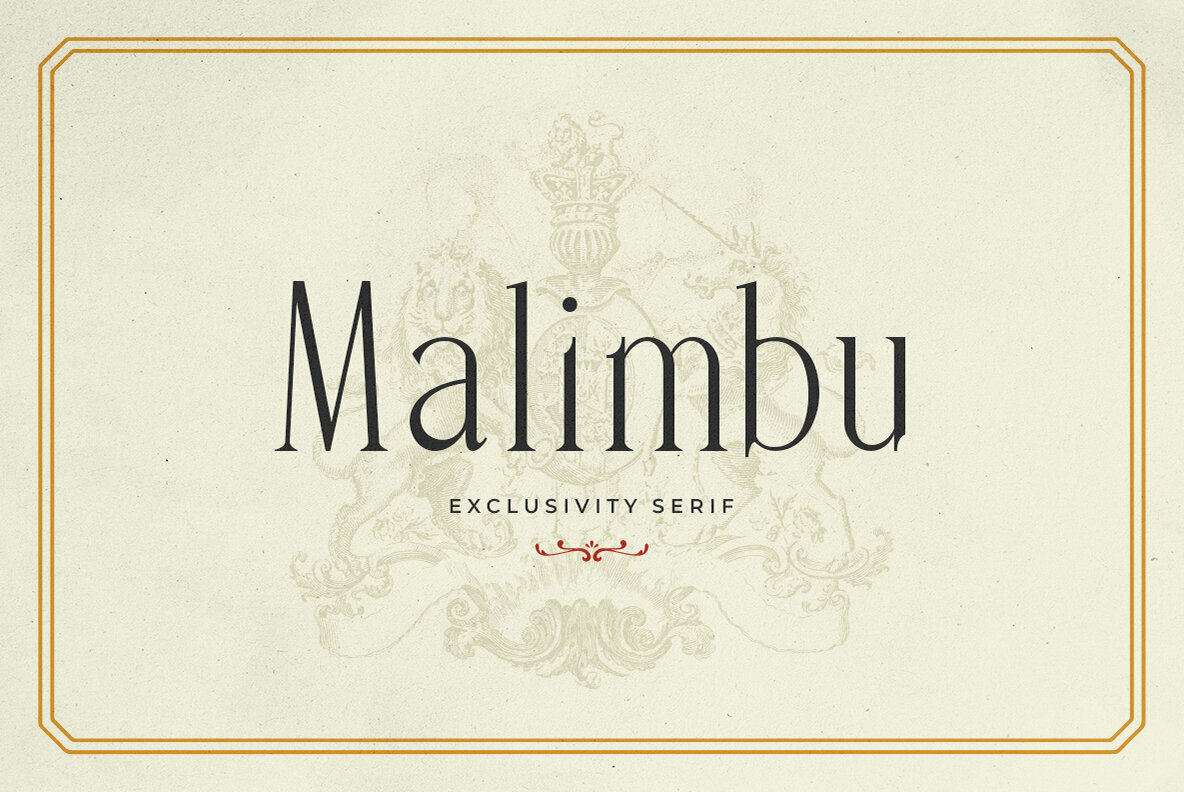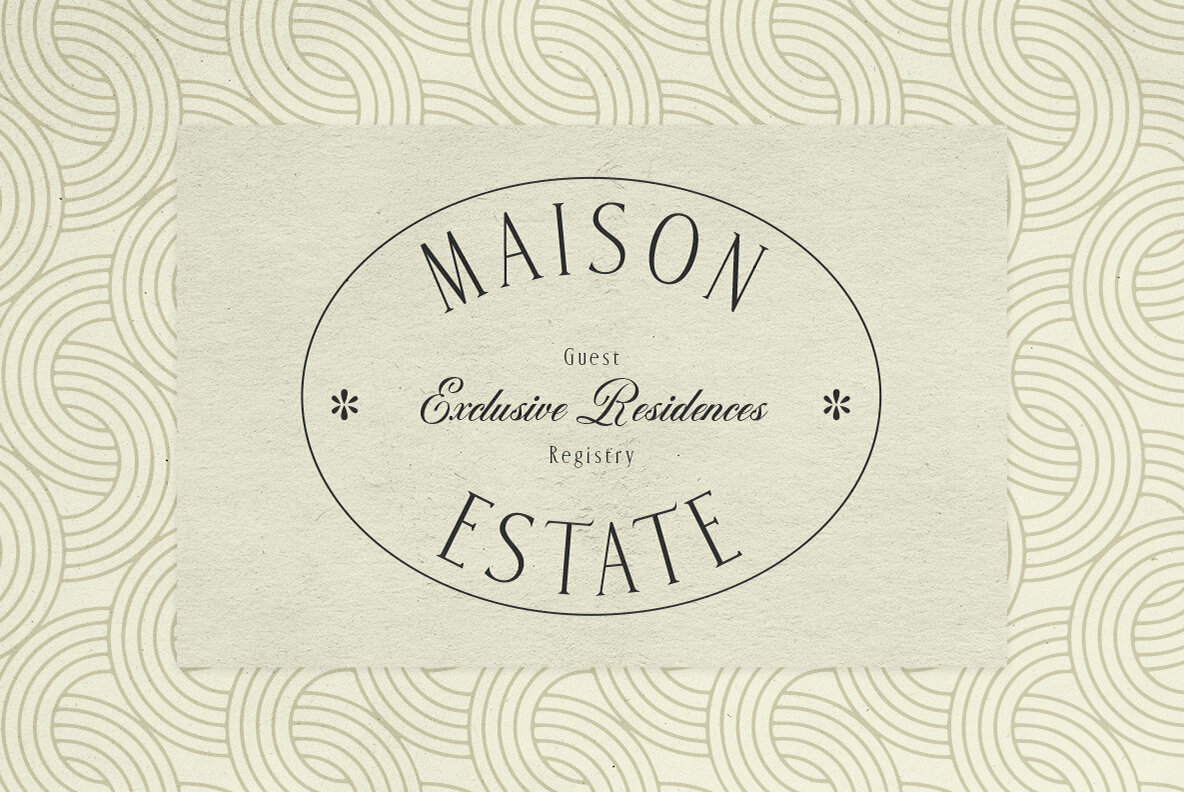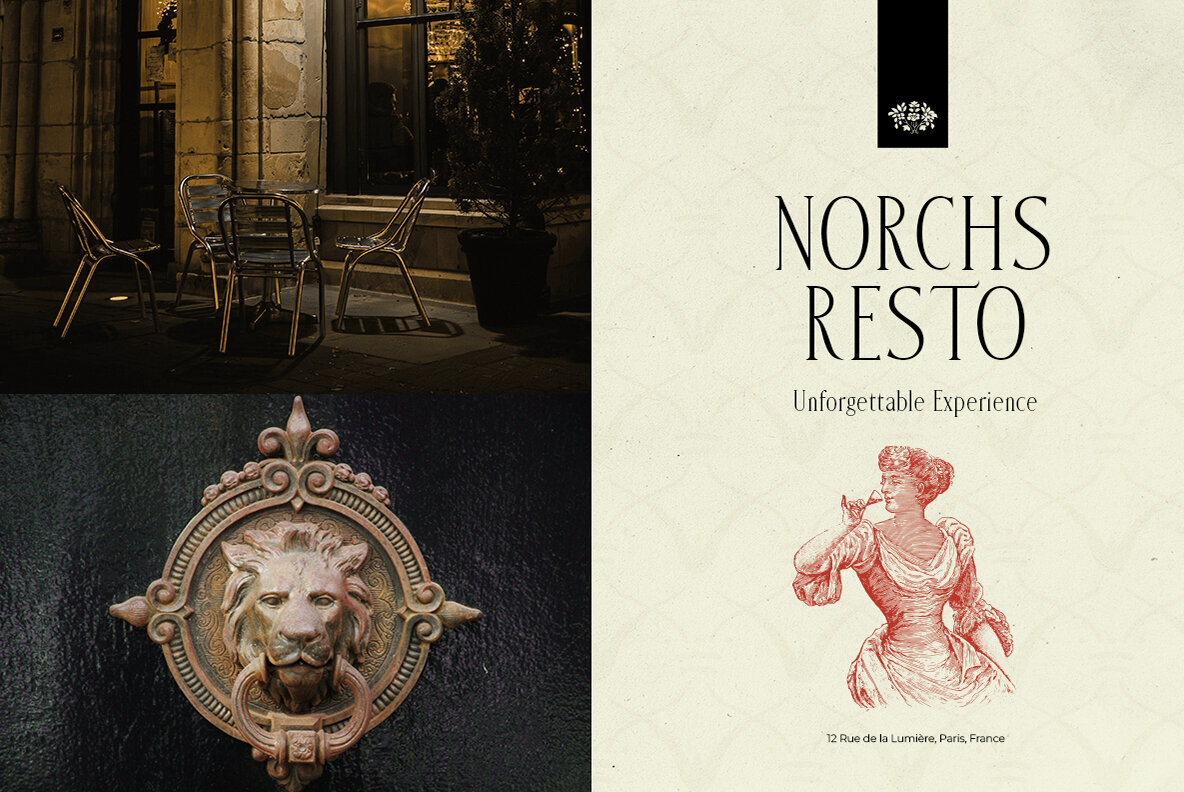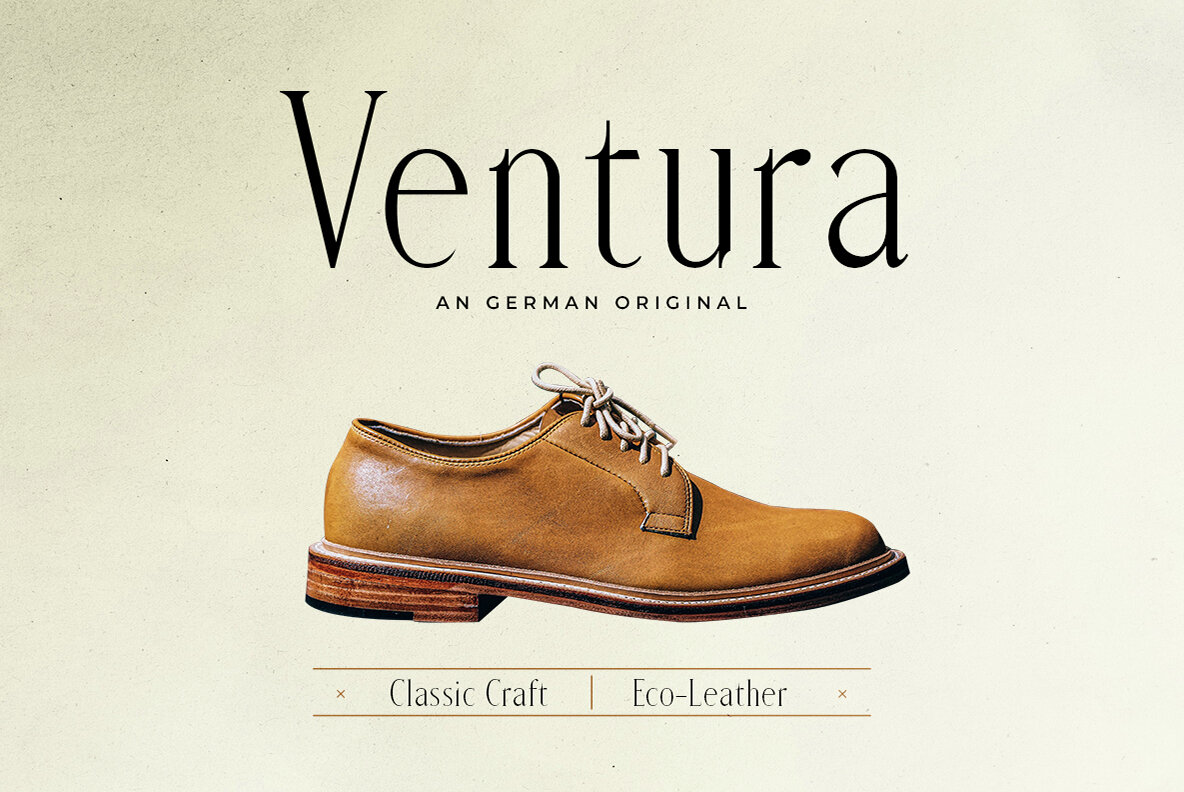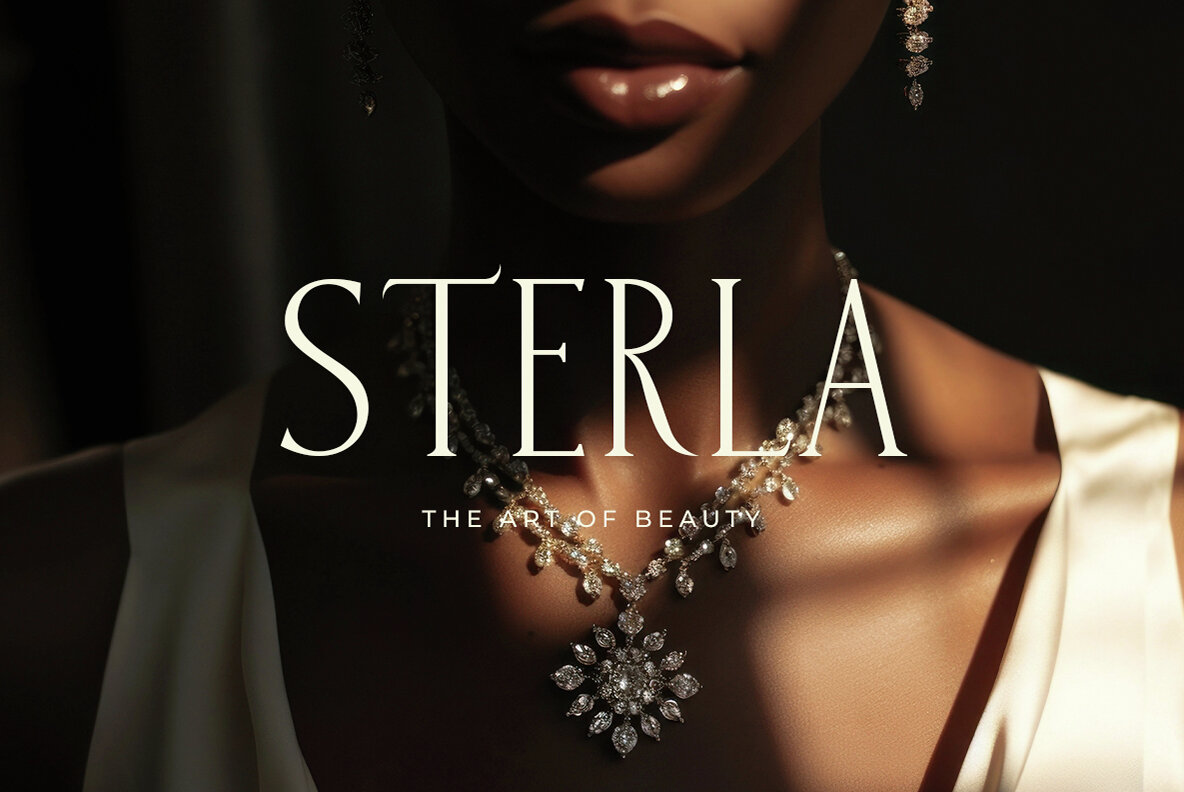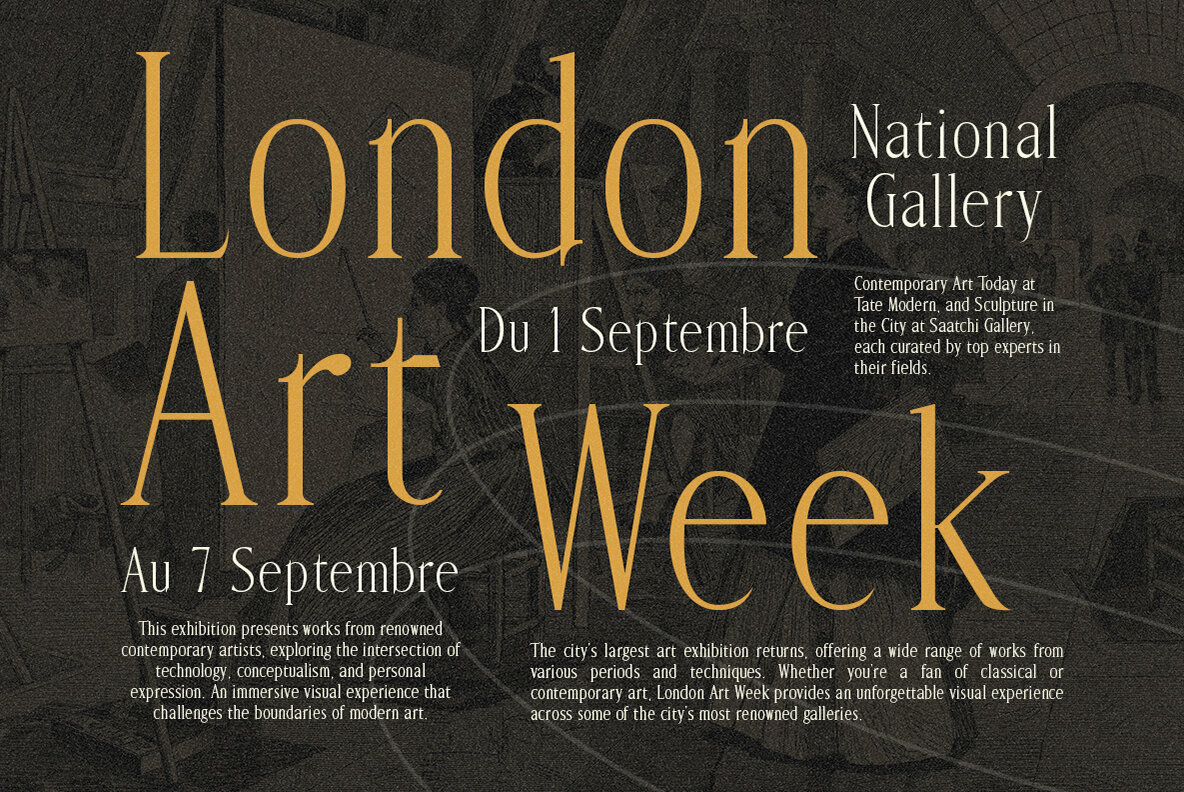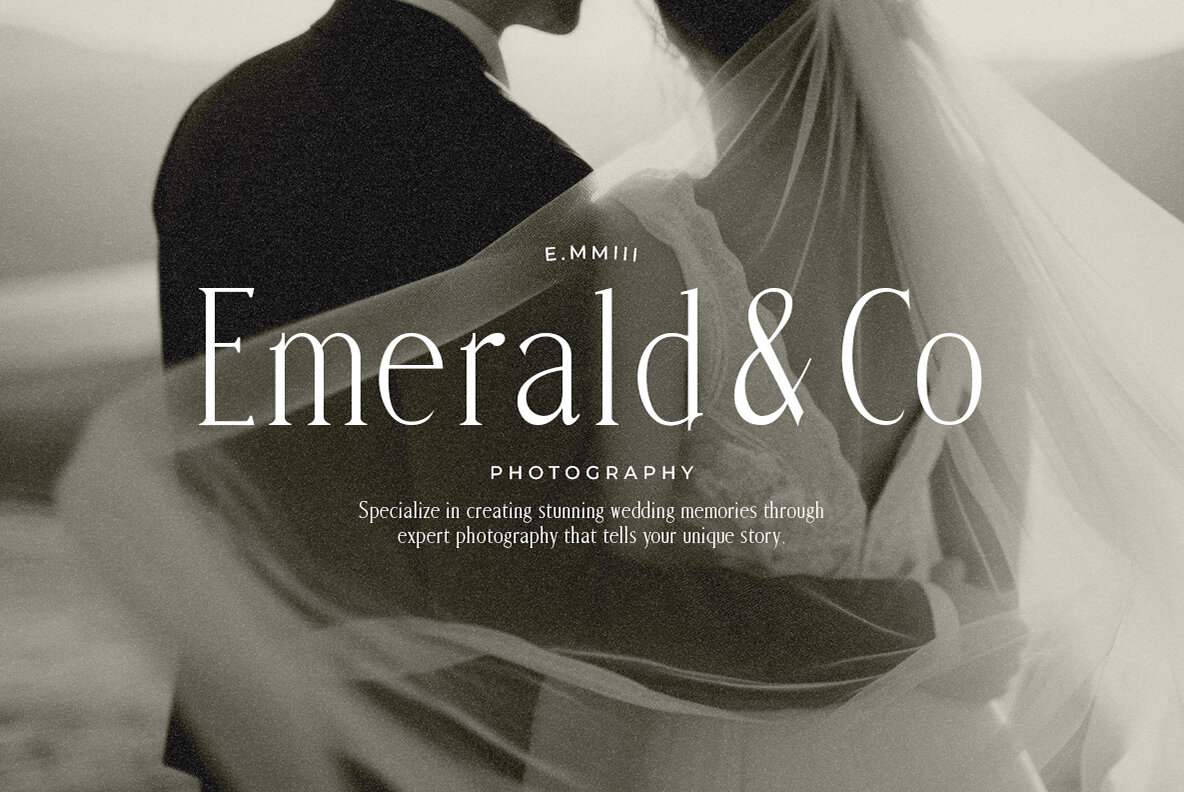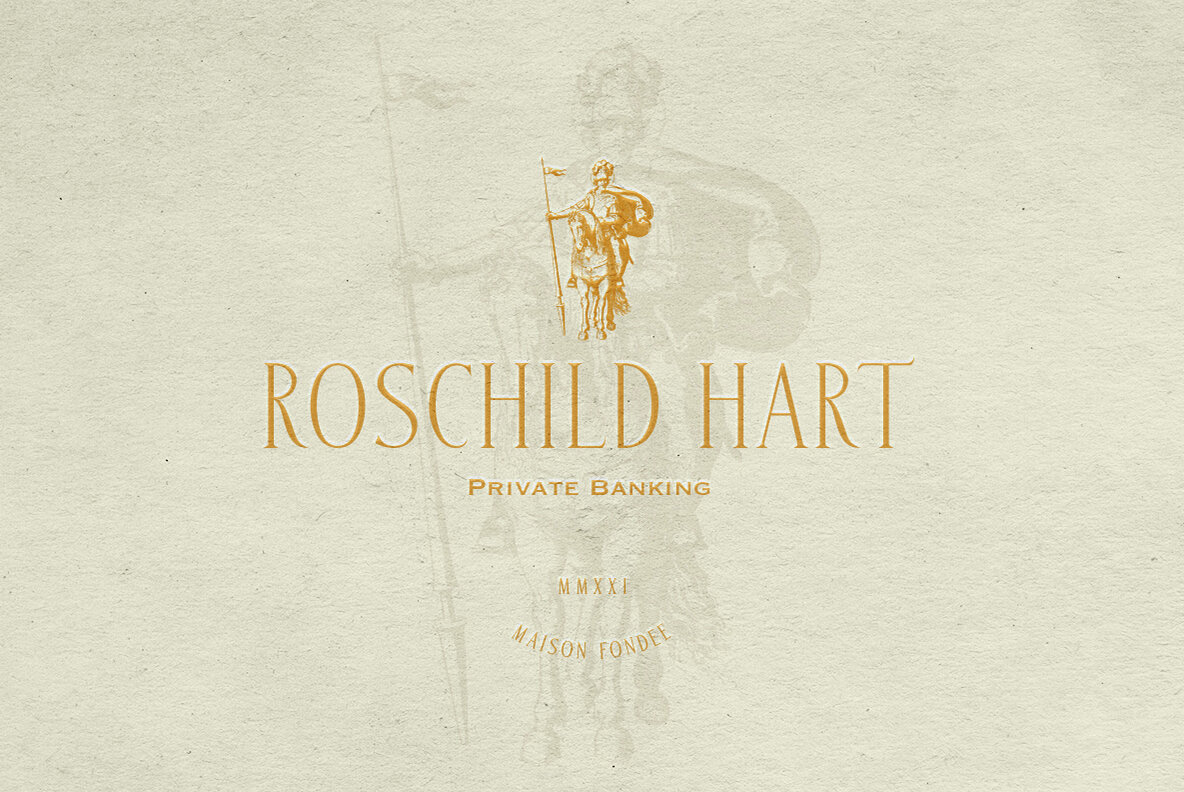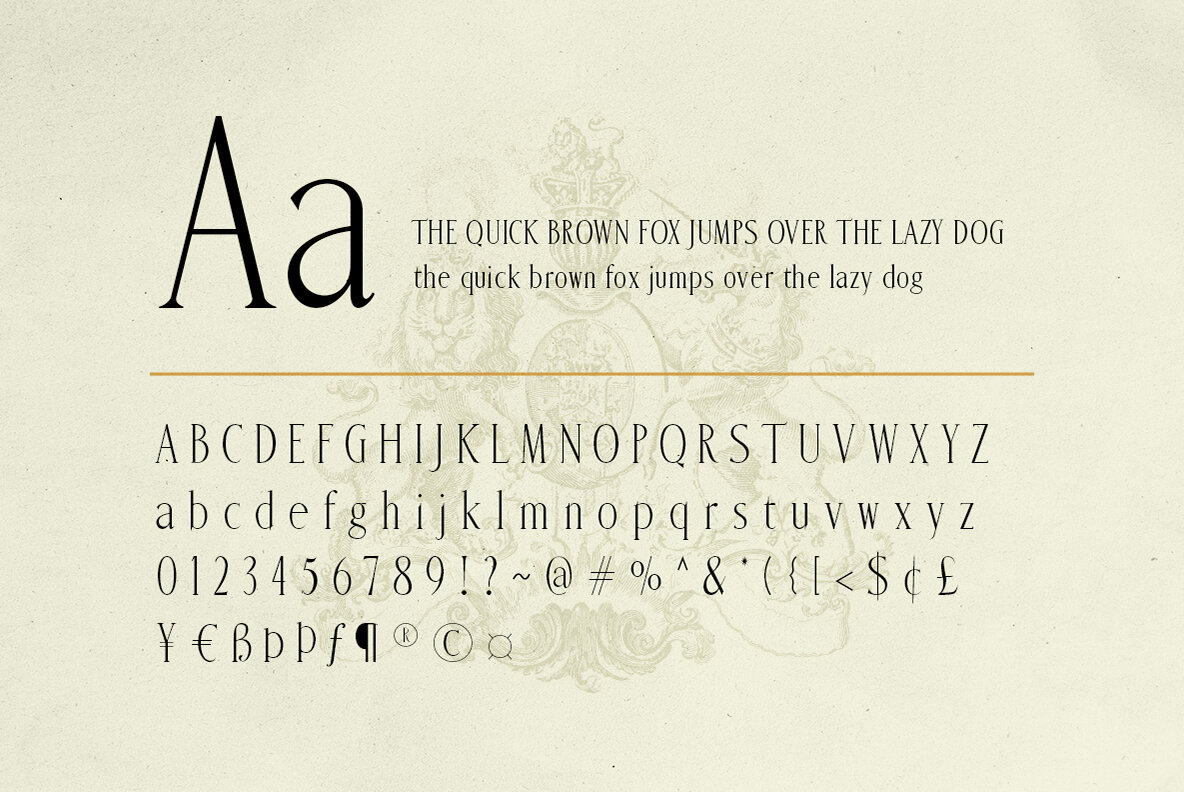
Malimbu Font
Malimbu Regular
Malimbu is an exquisite serif typeface that seamlessly blends timeless tradition with contemporary sophistication. Its sleek lines and subtle curves make it a perfect choice for upscale branding, luxury design, and refined digital content. With its graceful yet professional appearance, Malimbu effortlessly enhances any project that demands elegance and distinction.Malimbu: Elegance Redefined